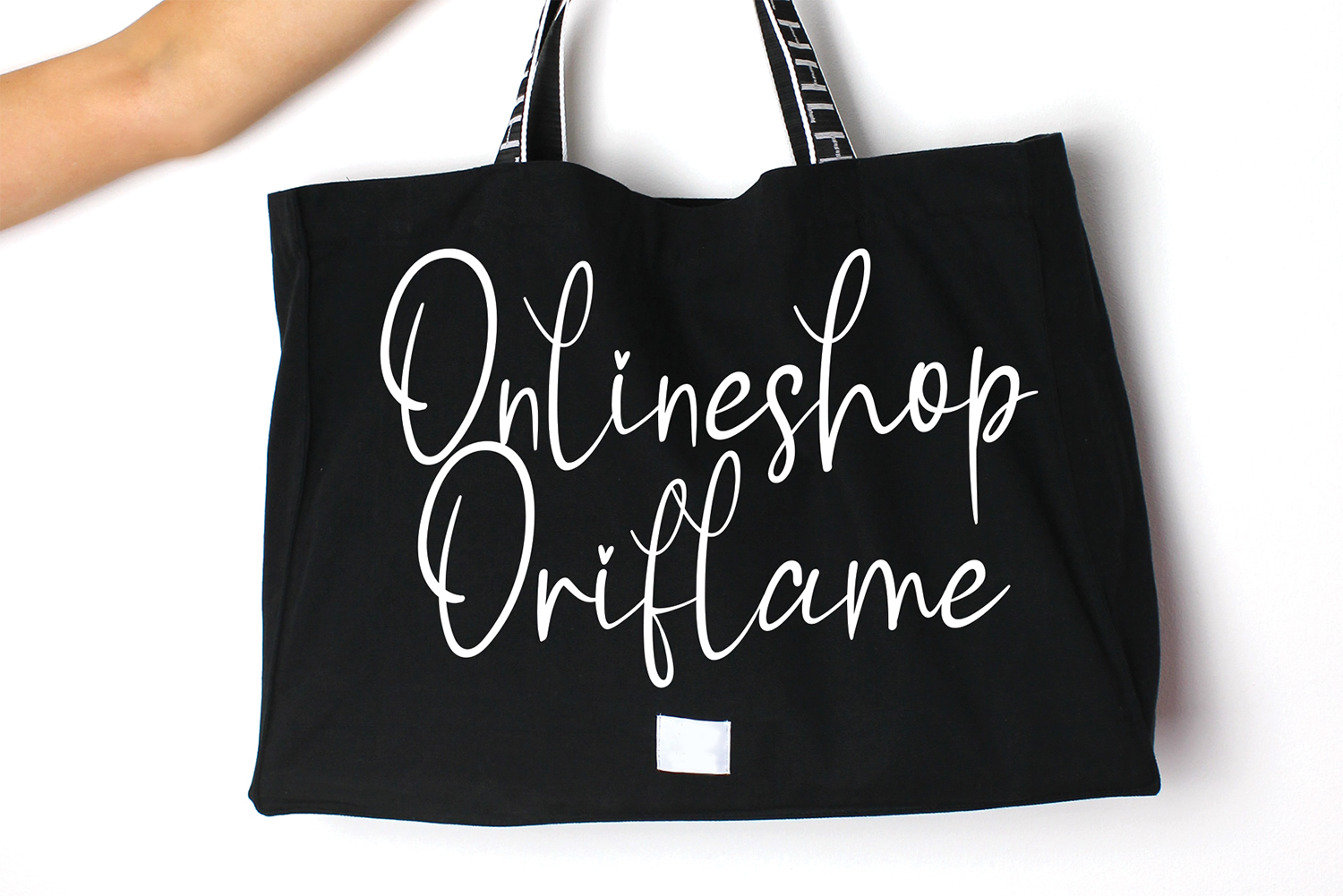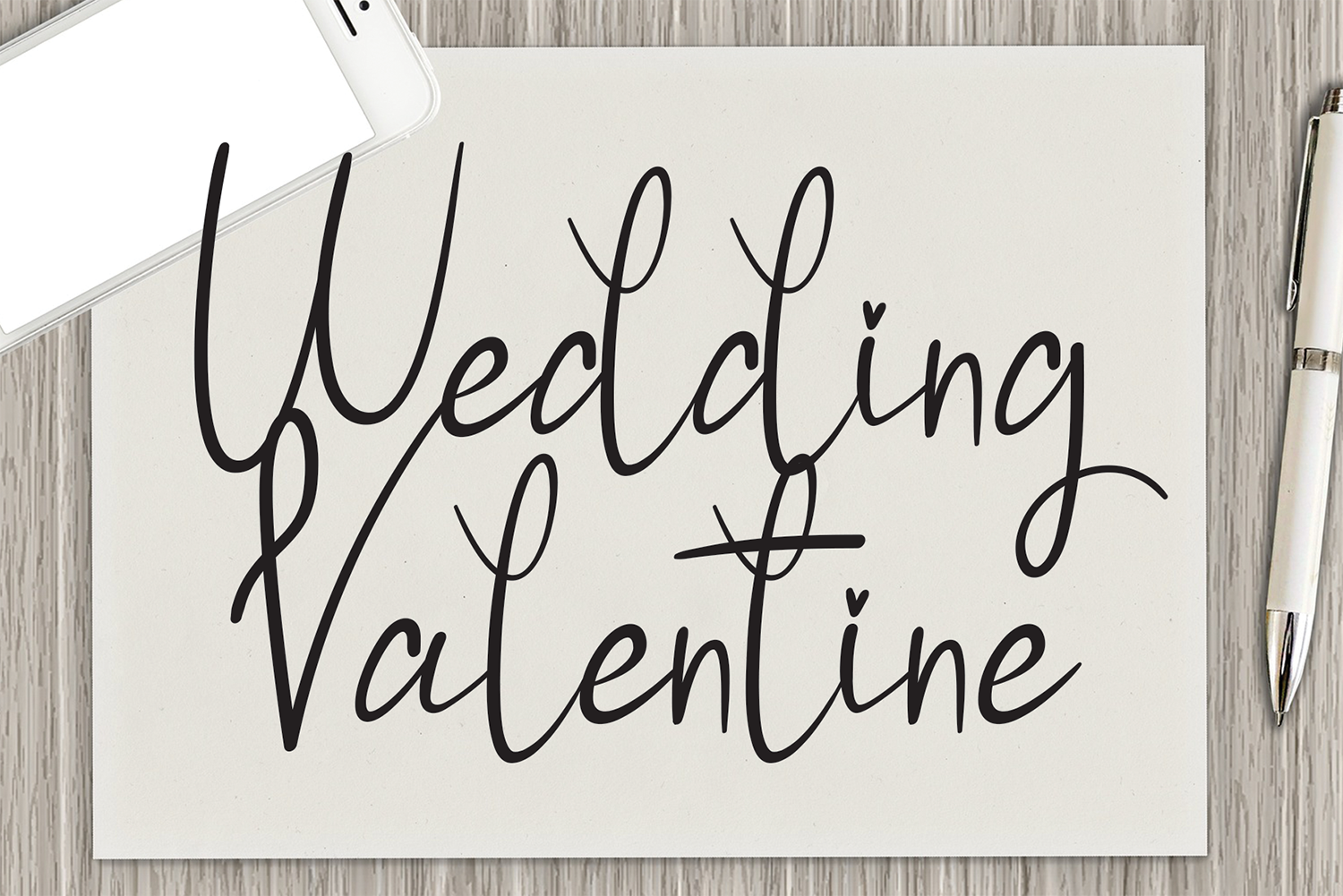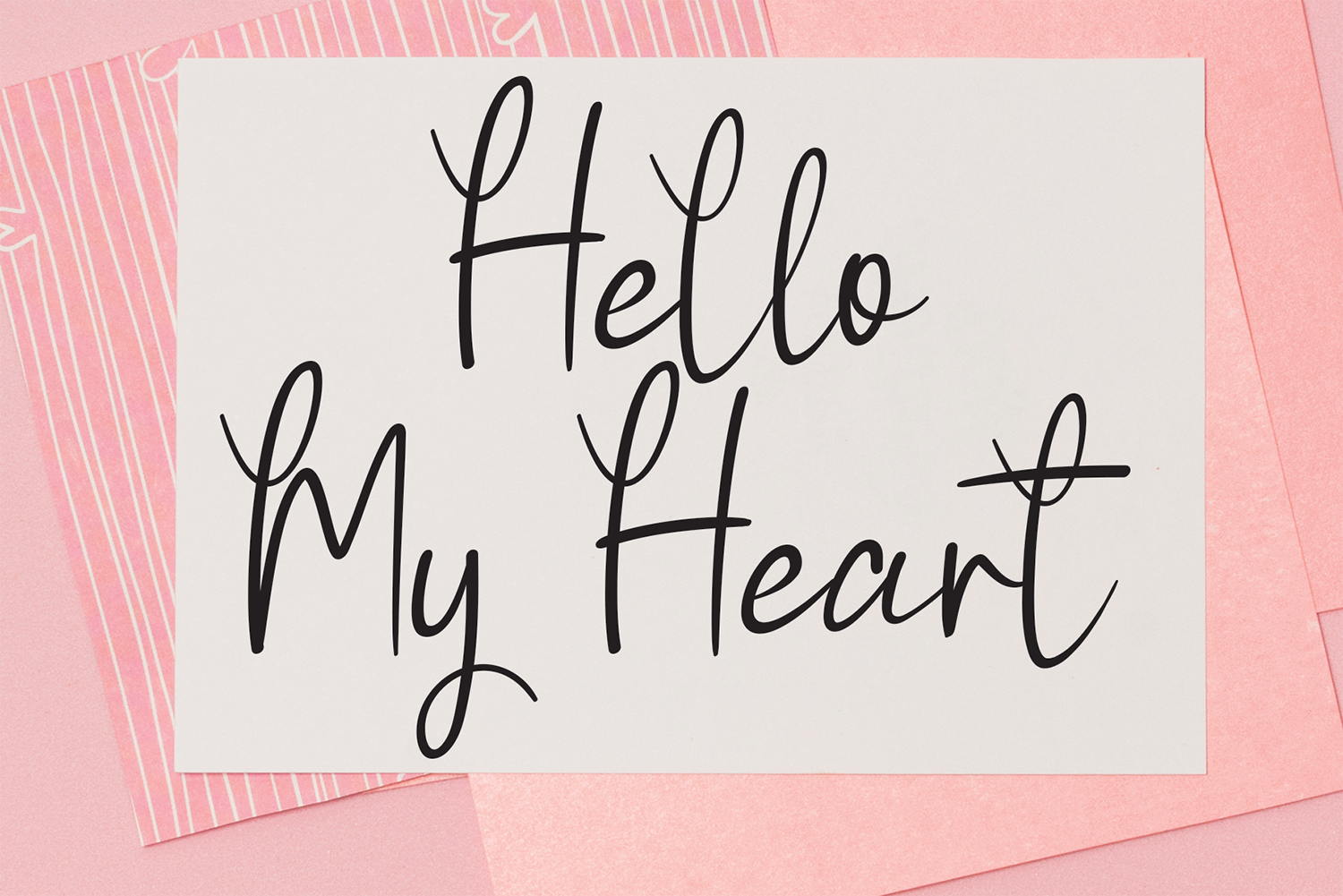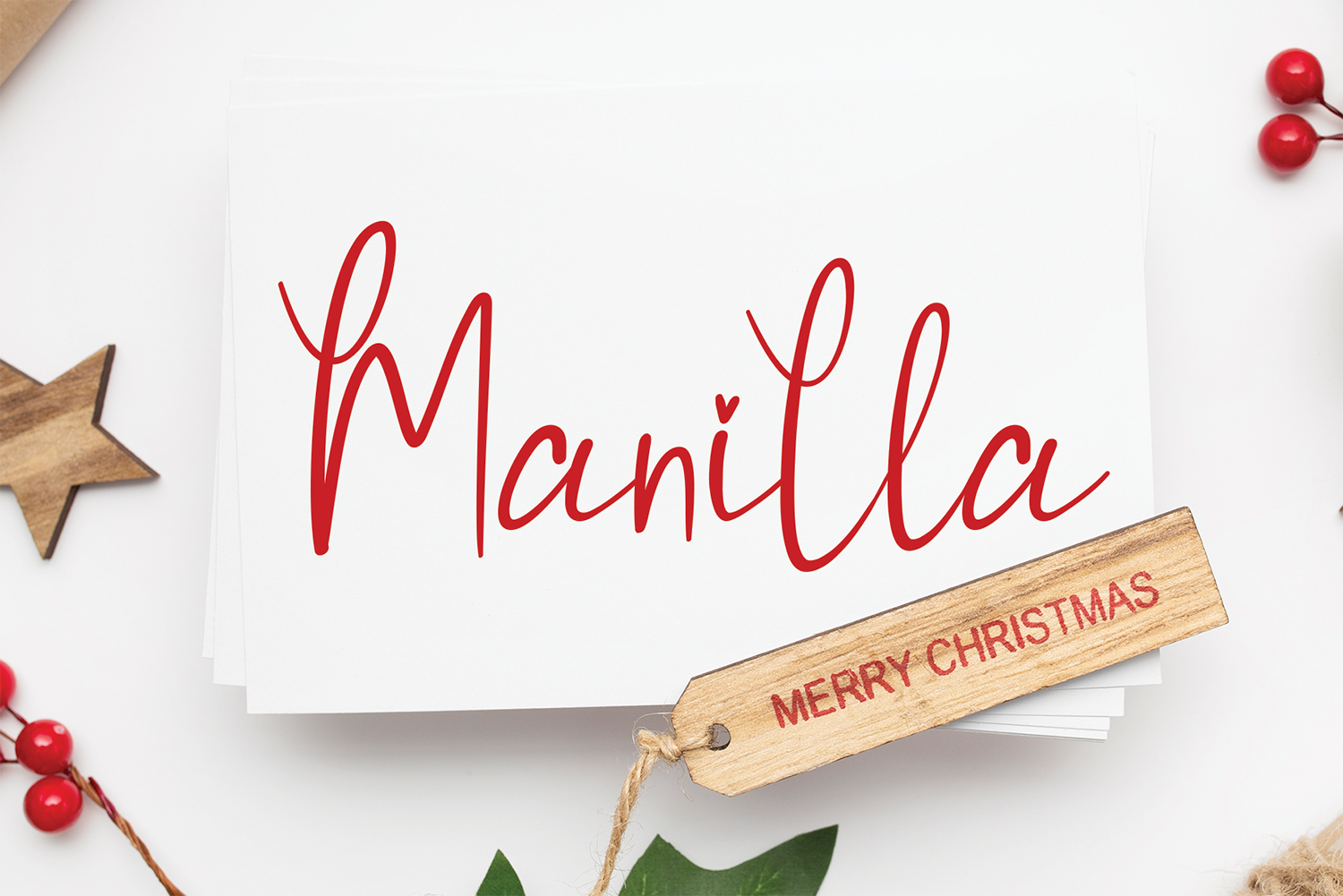
Butterfly Free Font
Introducing Butterfly Free Font, a refined script font boasting an air of elegance. With a delicate and sophisticated appearance, it strikes the perfect balance between subtlety and richness. Meticulously crafted, this font variation enhances the aesthetic appeal of your projects, adding a touch of grace and charm to elevate their visual allure. This free typeface was designed by a talentedΒ Scratchones Creative. If you like it don’t forget to check out the full version.